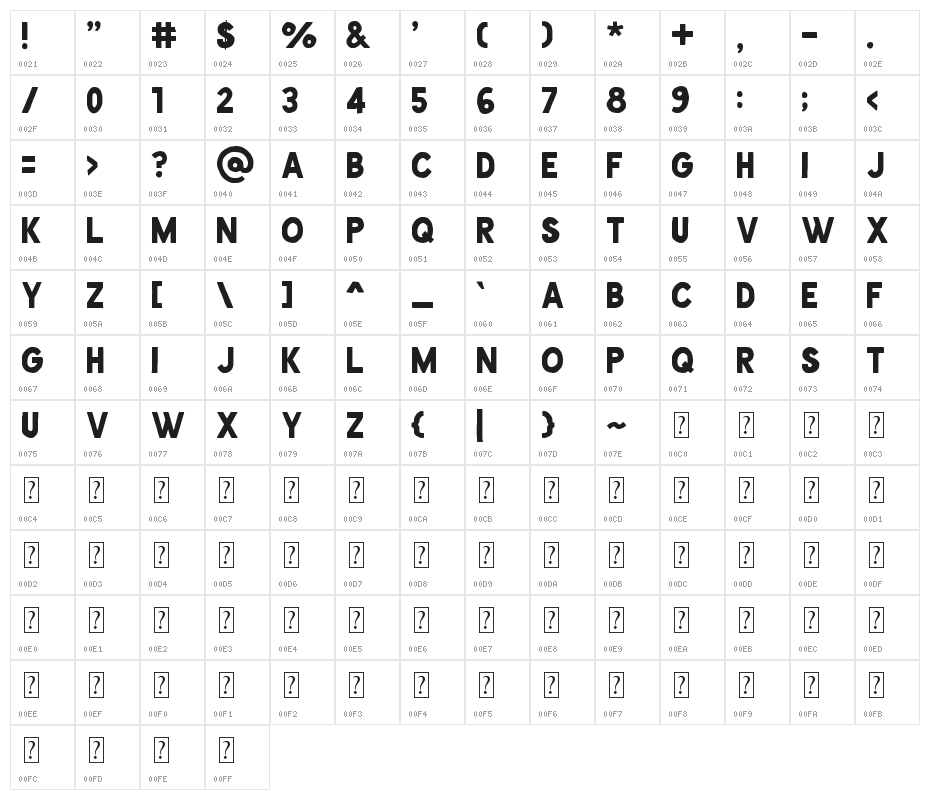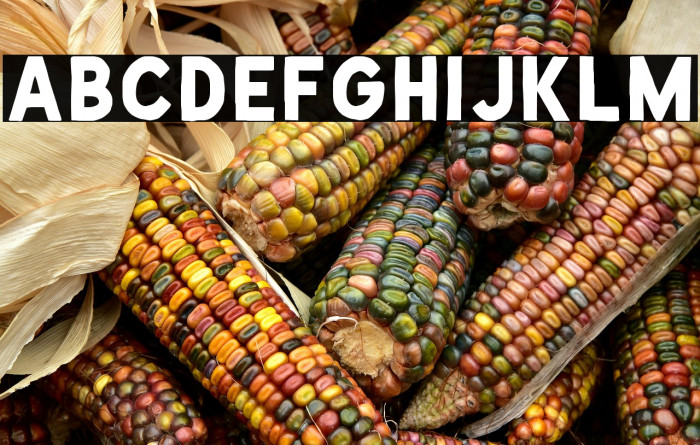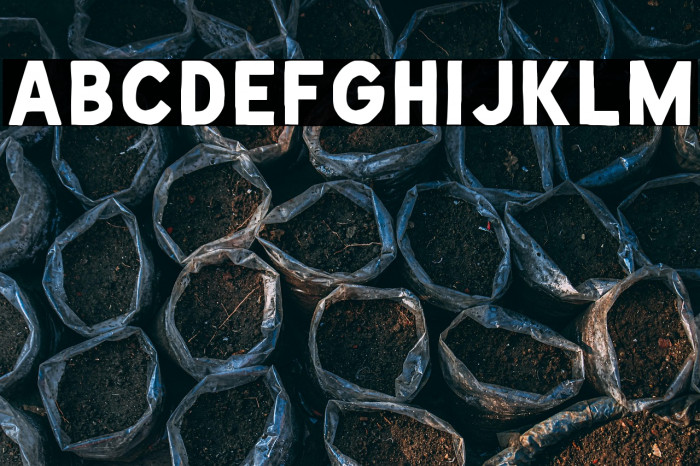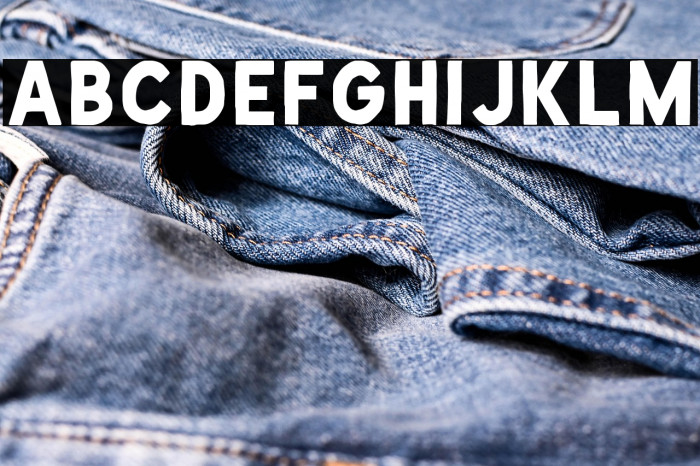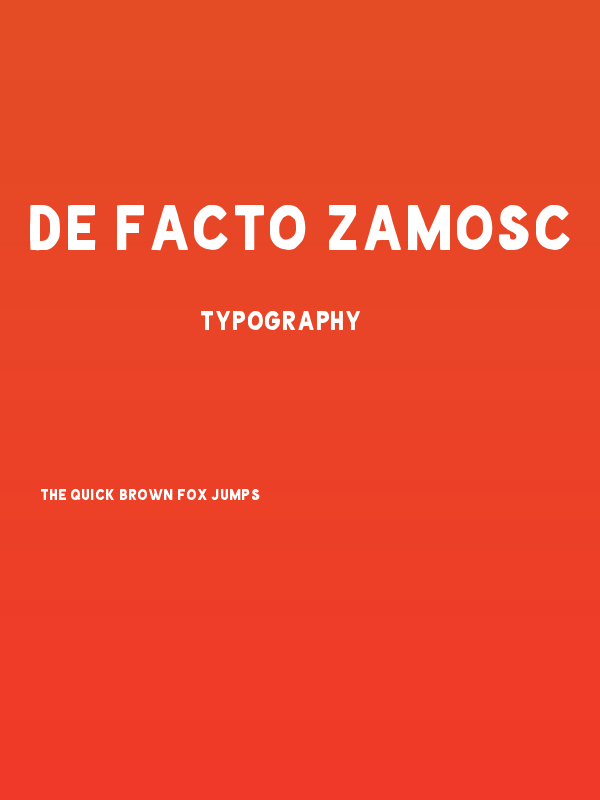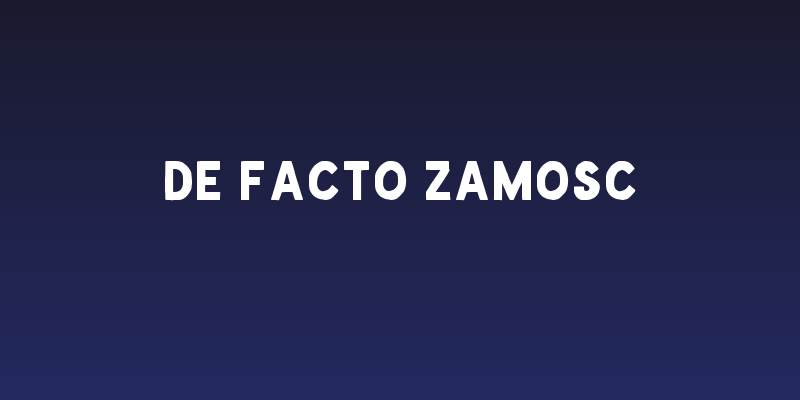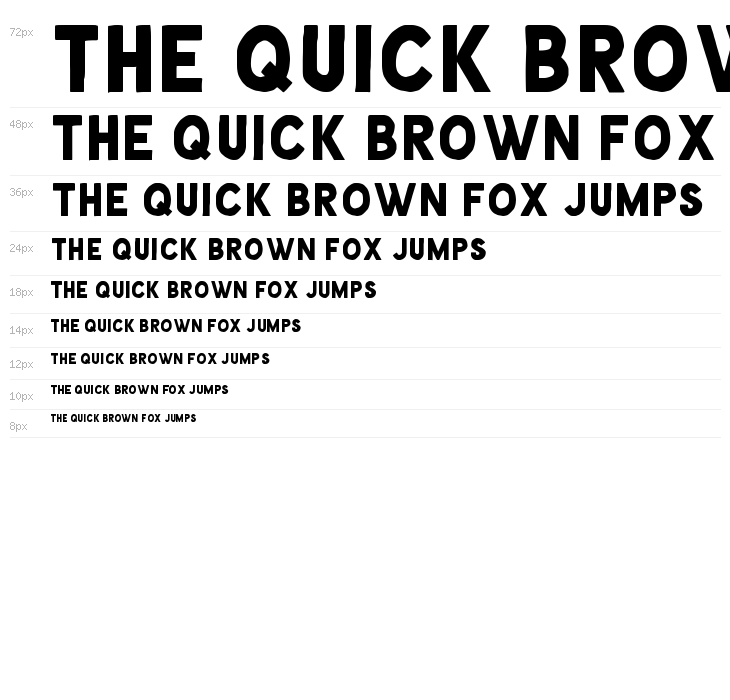
De Facto Zamosc Font
De Facto Zamosc Description
This font features bold, blocky characters with a strong presence, making it ideal for impactful designs. The uppercase letters are uniform in height and width, creating a cohesive and balanced look. The lowercase letters maintain the same boldness, providing consistency across different text cases. Numbers are equally bold and clear, ensuring readability. Special characters are designed to match the overall style, with a slightly playful touch. The font's thick strokes and minimal contrast give it a modern, robust appearance, suitable for various design applications.
| Proposed Projects | Ideal for posters, headlines, branding, and advertising where a strong visual impact is needed. |